Horizon Outline Font Dafont. This one works really well in neon colors. Cookie crumble font cookie crumble is a wonderful display typeface.
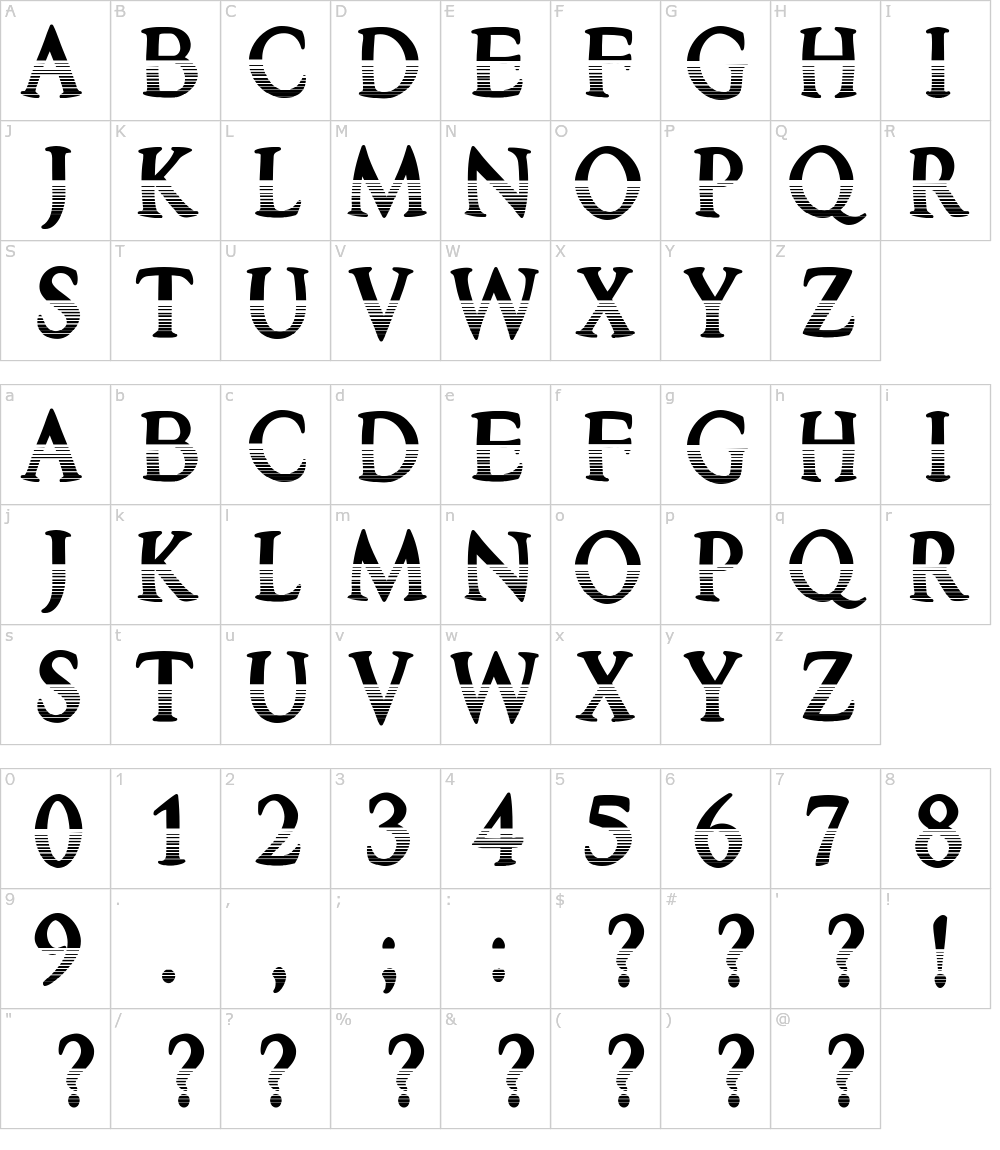
1001 free fonts offers the best selection of outline fonts for windows and macintosh. You can use the horizon outline to create interesting designs, covers, shop and store name and logos. Only letters for now, but i might expand on this font in the future.
This one works really well in neon colors. About the font horizon outline. A new font looks with the feel of the new year 2020 and winter in outline style, perfect for this year's amazing new year project.
Available in regular and italic faces. Bizmo font family is meant for display, it’s characteristic is in it’s wide letterform which is suitable for use in large or long spaces. Outline fonts have letters with a separate outer line.